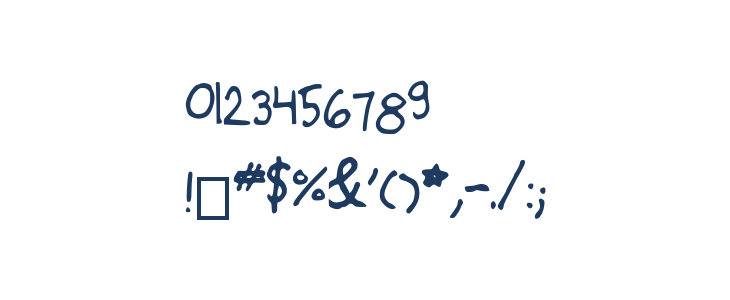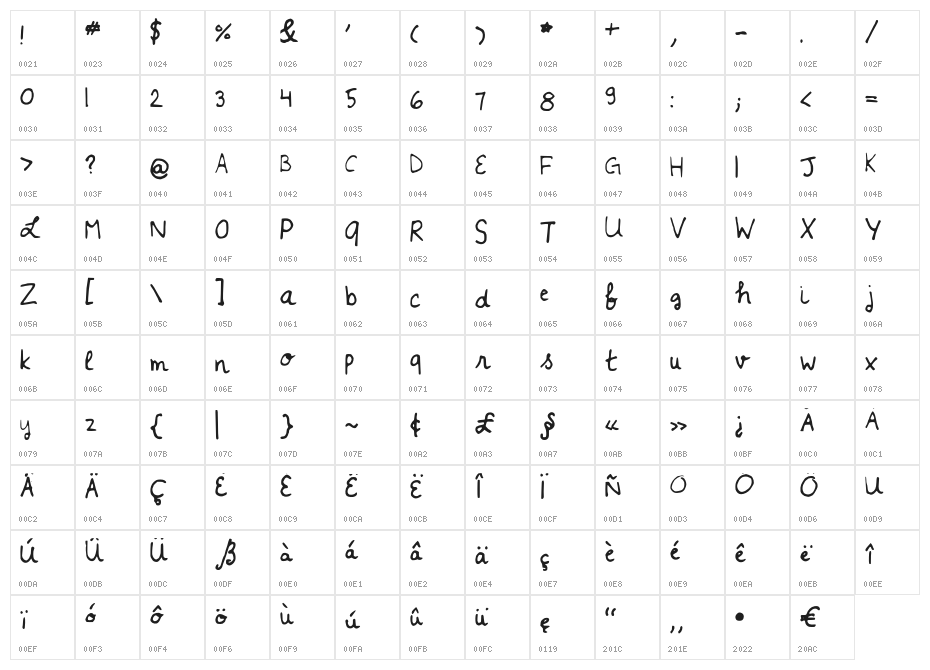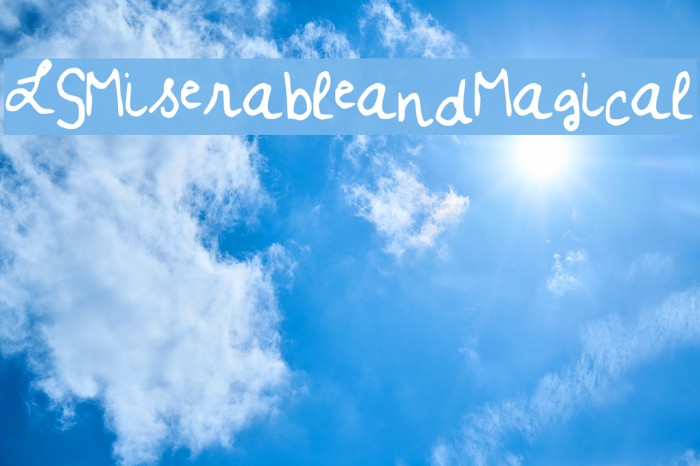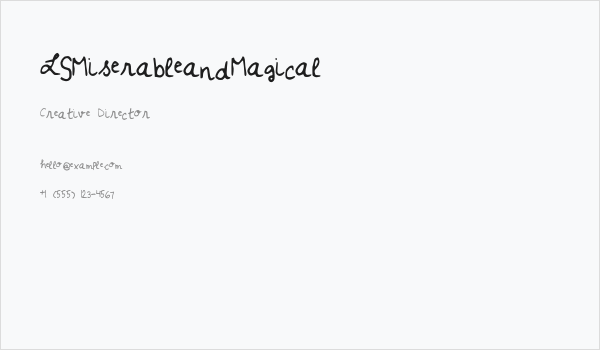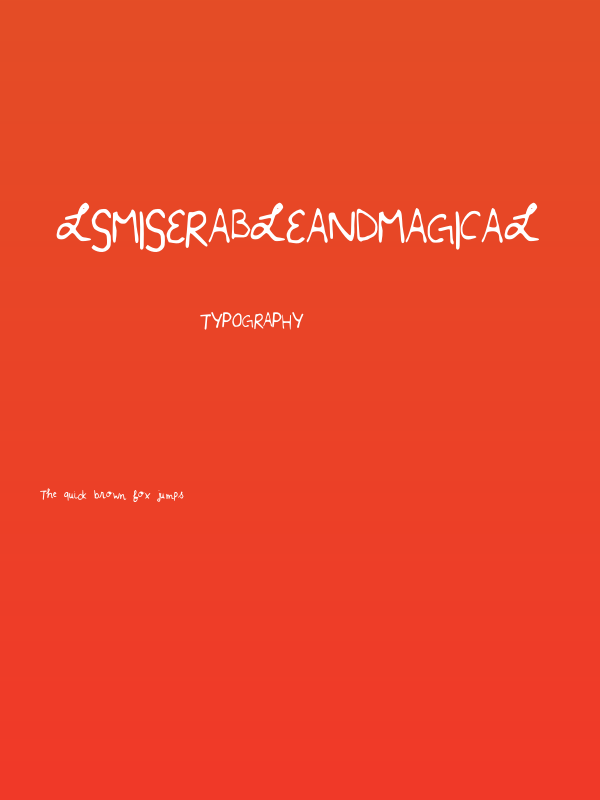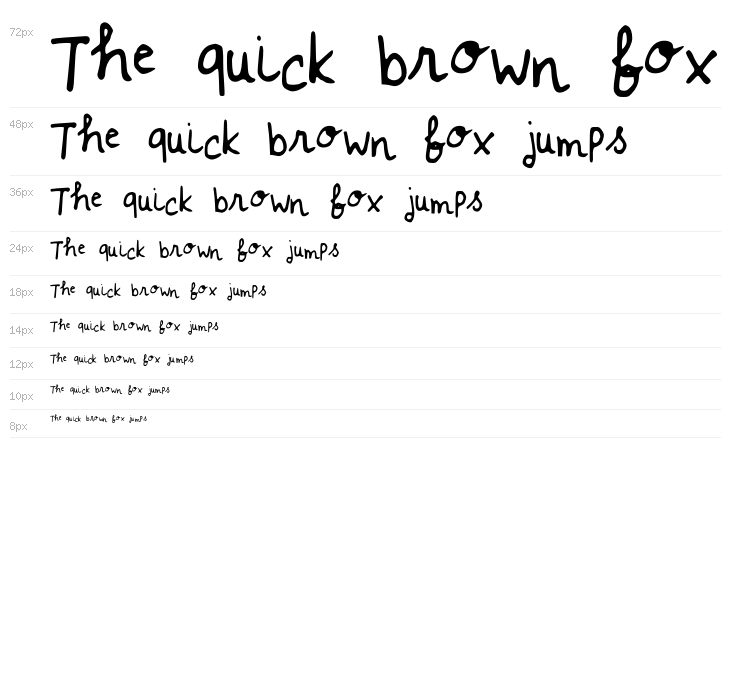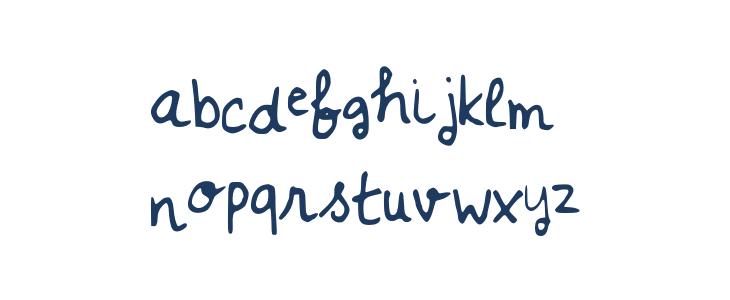
LSMiserableandMagical Font
LSMiserableandMagical Description
This font exudes a playful and whimsical charm, characterized by its handwritten style that mimics the fluidity and irregularity of casual penmanship. The letters are slightly slanted, with varying stroke widths that add a dynamic and lively feel. The uppercase and lowercase letters maintain a consistent style, with rounded edges and a slightly uneven baseline that enhances its informal appearance. The numbers and special characters follow the same playful aesthetic, making it suitable for creative and informal projects. Its unique style captures attention while maintaining readability.
| Proposed Projects | Ideal for children's books, greeting cards, playful branding, and casual invitations. |